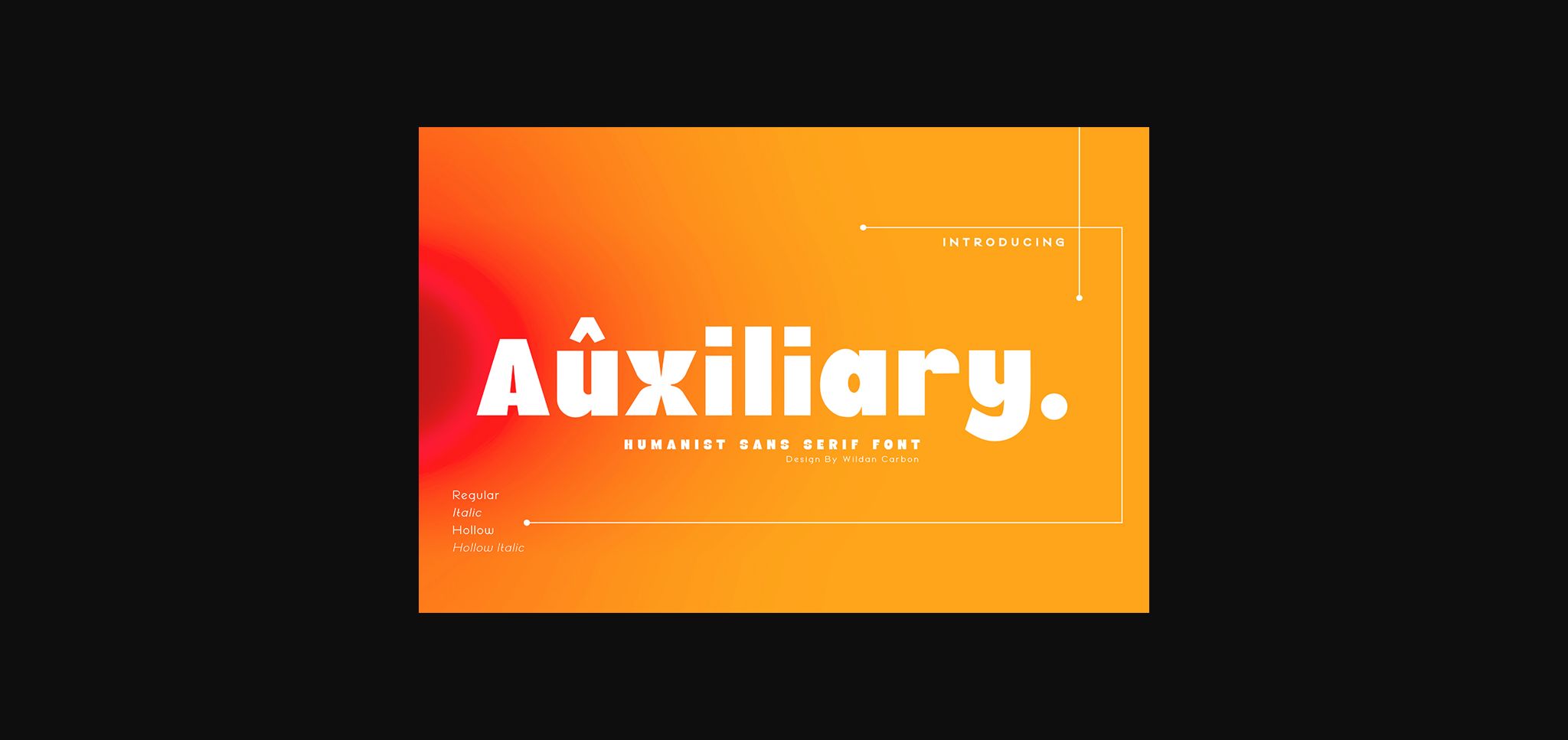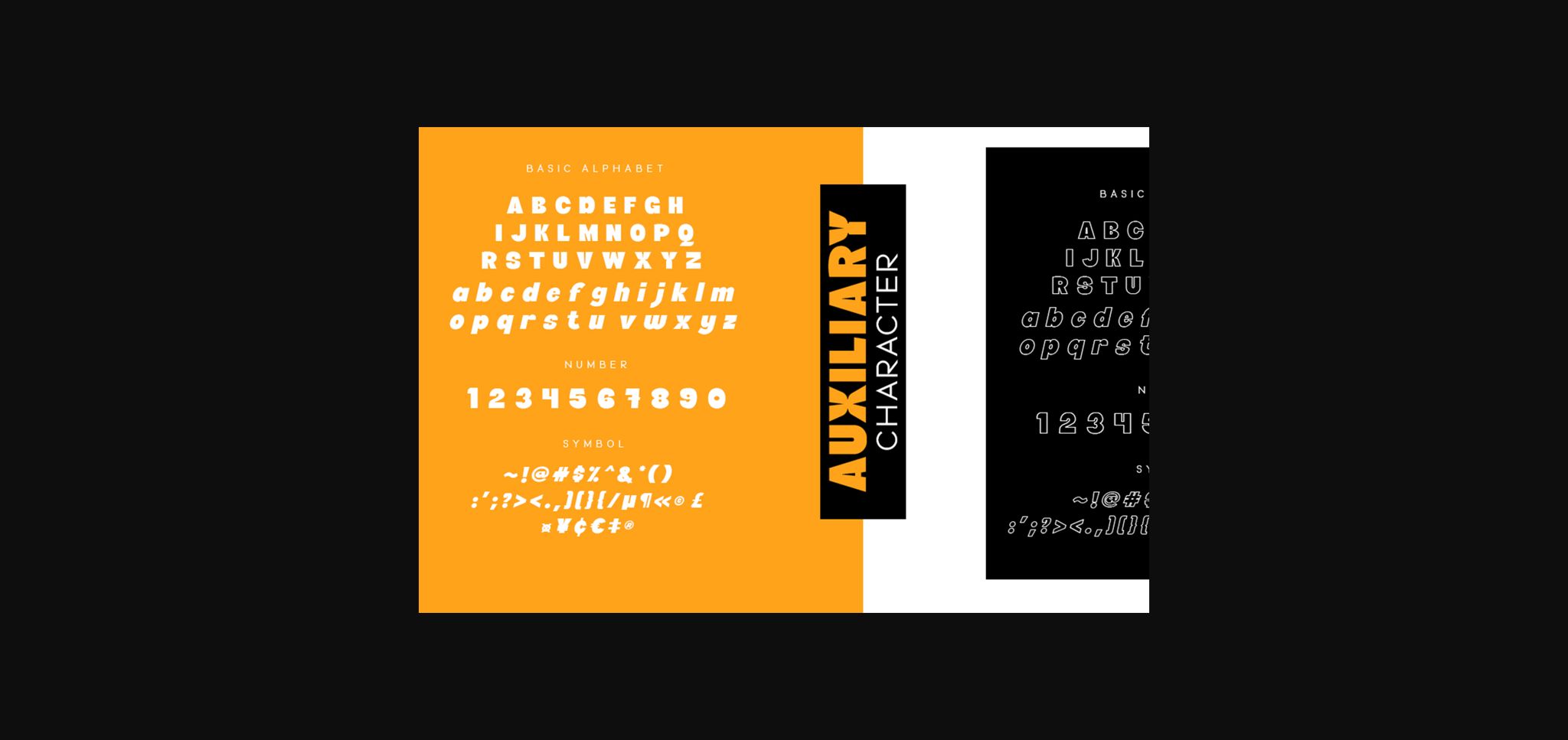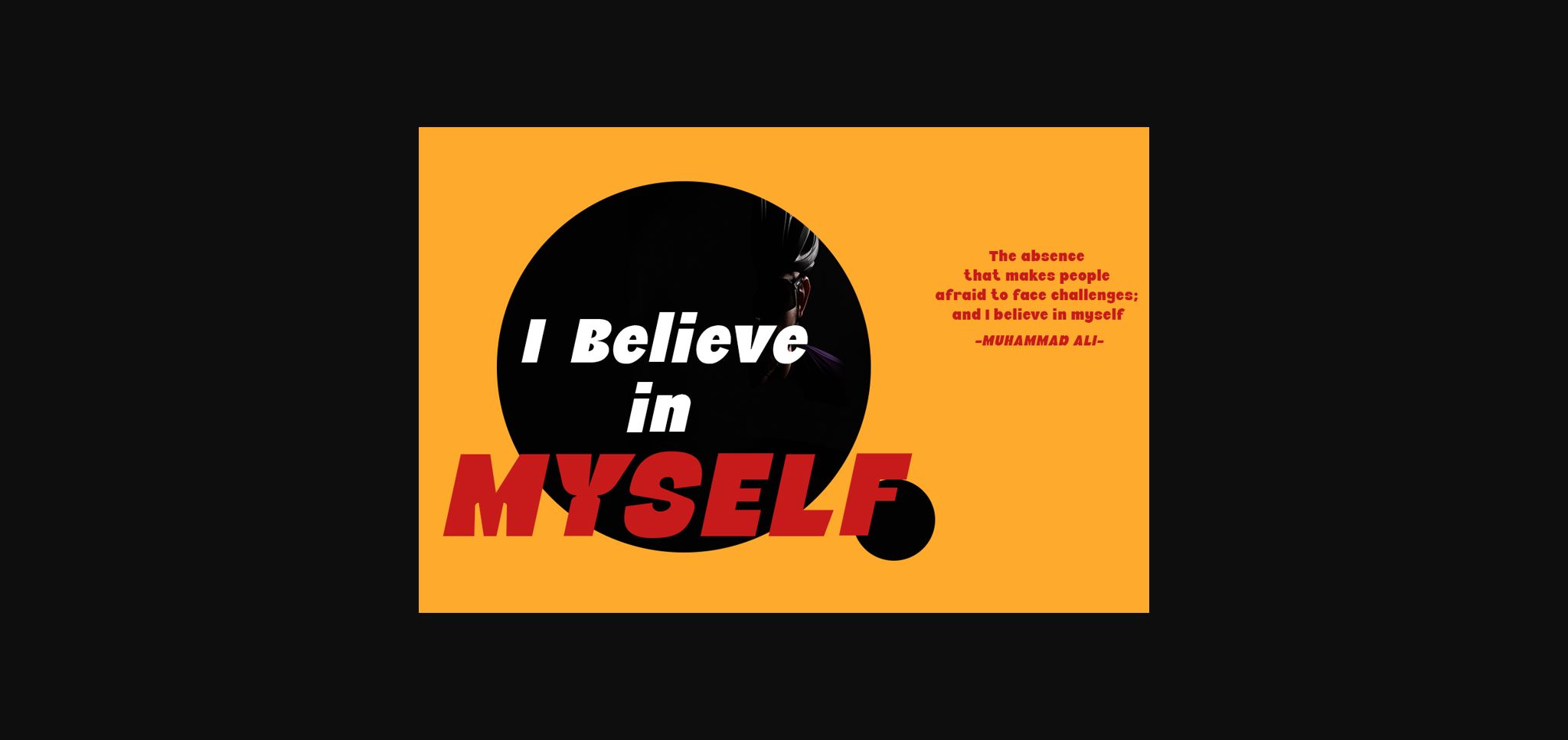
Auxiliary Font
About Auxiliary Font
Auxiliary is a cool, thick lettered sans serif font. Masterfully designed to become a true favorite, this font has the potential to bring each of your creative ideas to the highest level!